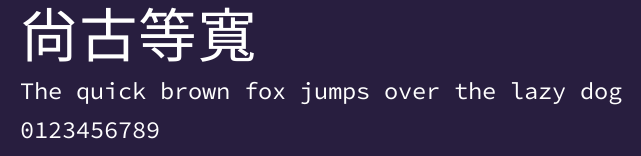
• Font Name: 尙古等寬
• Full Font Name: 尙古等寬 Regular
• Character Count: 44811
• Designer: GuiWonder
• Description: Pan-CJK font
About 尙古等寬.ttf
尙古等寬.ttf is a modern, elegant sans-serif font designed for ultimate readability and visual harmony. Perfect for branding, headlines, web design, and print materials.